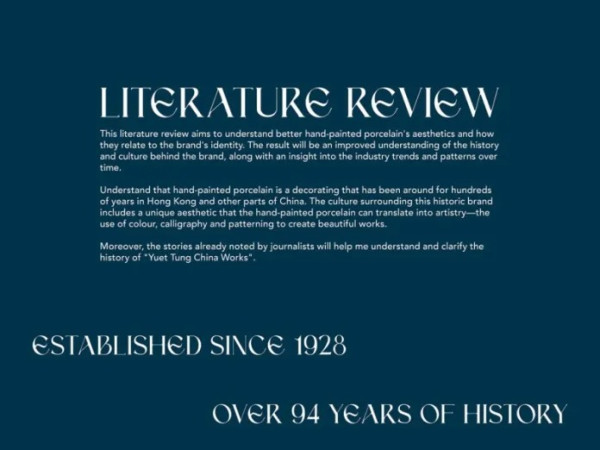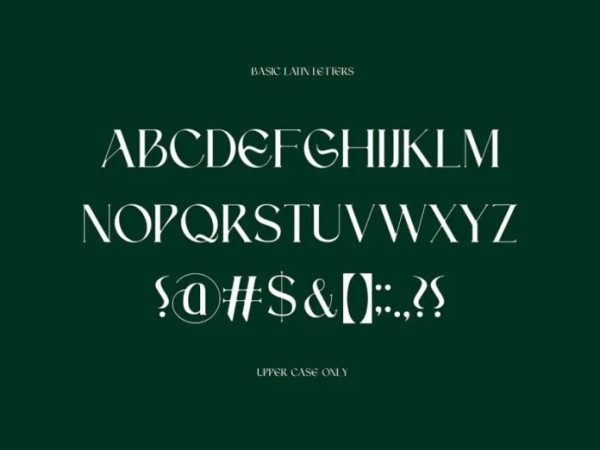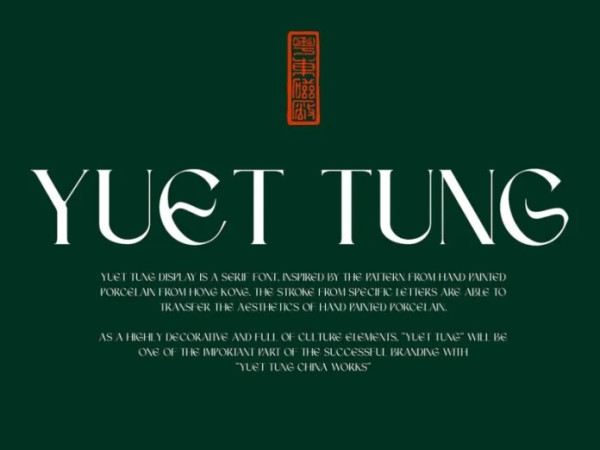
YUET TUNG FONT
Yuet Tung Font, the classic elegant serif font with a twist, using the contrast between lines and curves reflecting your brand’s sophistication